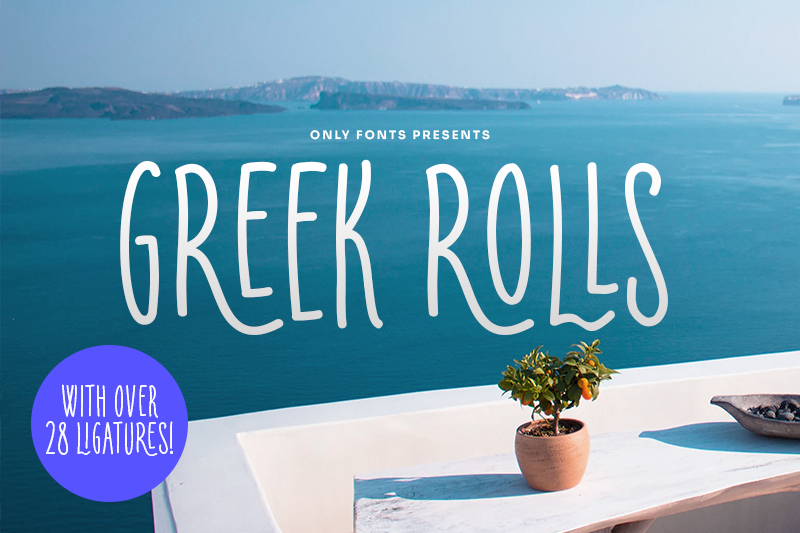
Preview and download Greek Rolls Font. Created by Only Fonts in Script Handwritten styles with Free for personal use license.
Font name: | Greek Rolls |
Author: | Only Fonts |
NEW: FREE for Personal and JUST 3$ for Commercial Use! Introducing our very first "OnlyFont"! A new font foundry that aims to make cool handcrafted fonts affordable for everyone. Its just 3$ for small companies and can be bought @ www.only-fonts.com/greekrolls "Greek Rolls" is a font with many faces. If you only type in lower case you will have a beautiful handwritten typeface but if you're feeling funky just type in upper case and enjoy its 28 LIGATURES which make every design stand out. Missing a glyph? No problem. We'll create up to three glyphs for you for free if you purchase a license! Need a custom wordmark or do you have any other questions? Get us at hello@only-fonts.com. And now enjoy them Greek Rolls! |